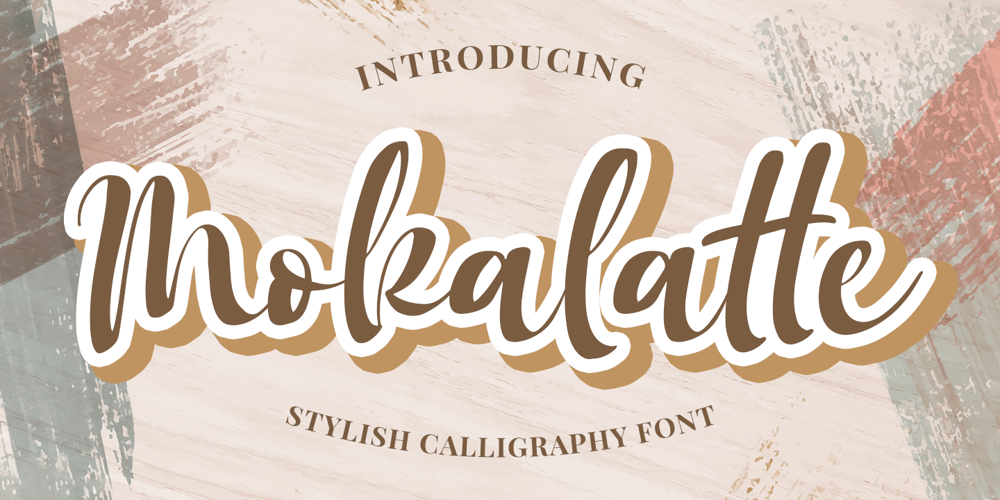
Mokalatte
Mokalatte font
Mokalatte Font Family was designed by Abdul Malik Wisnu and published by Almarkha Type. Mokalatte contains 1 styles and family package options. Mokalatte – Stylish Script font with a natural handwritten feel. This handmade font will make your design has a beautiful natural touch for each details. It is perfect for any design project as Invitation,logo, book cover, craft or any design purposes.This font is PUA encoded which means you can access all of alternate glyphs and ligatures.